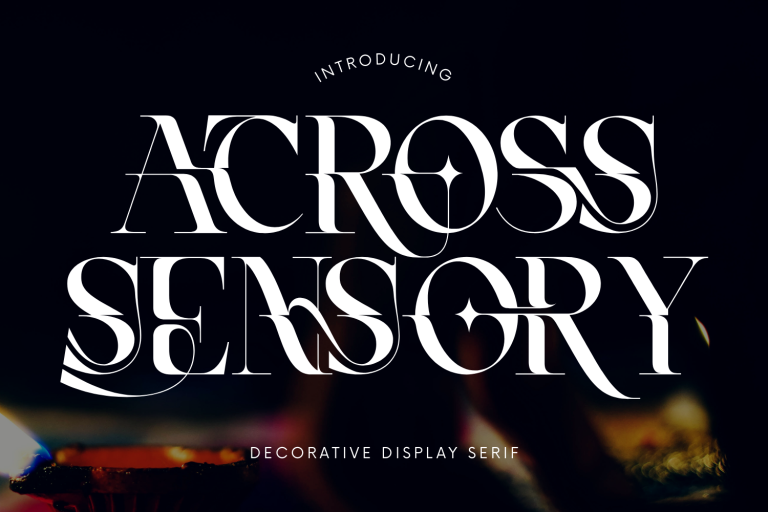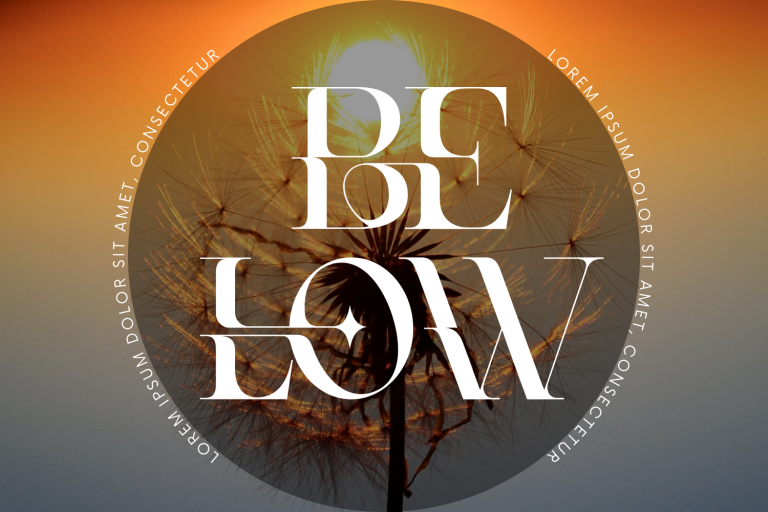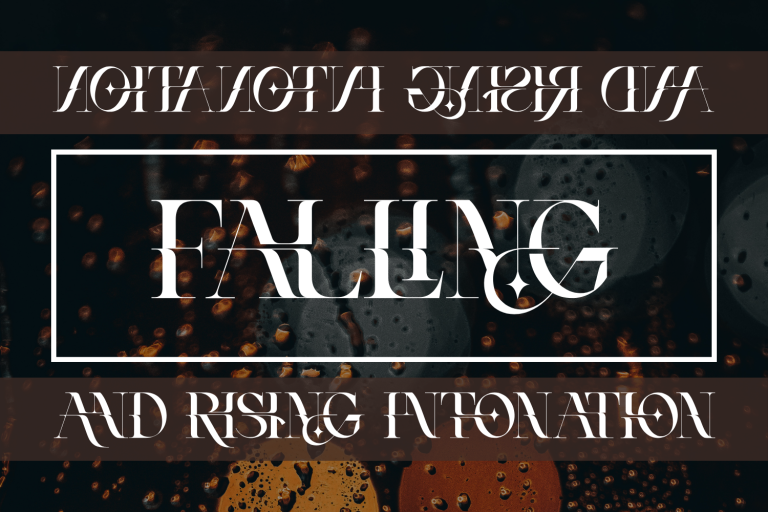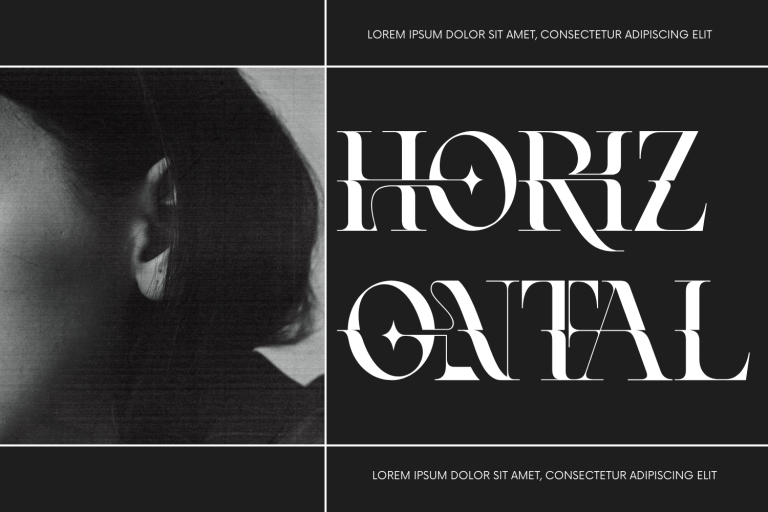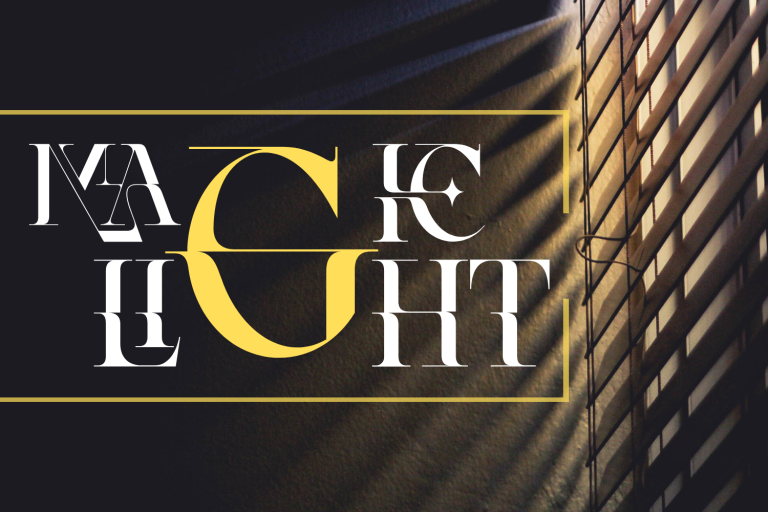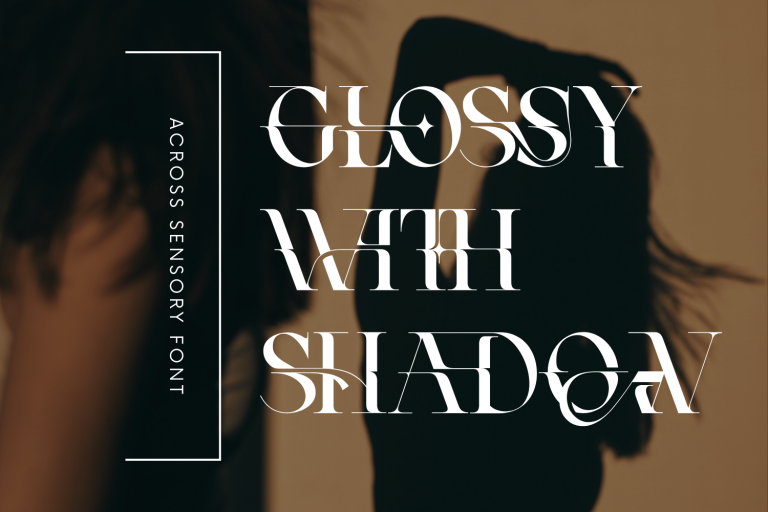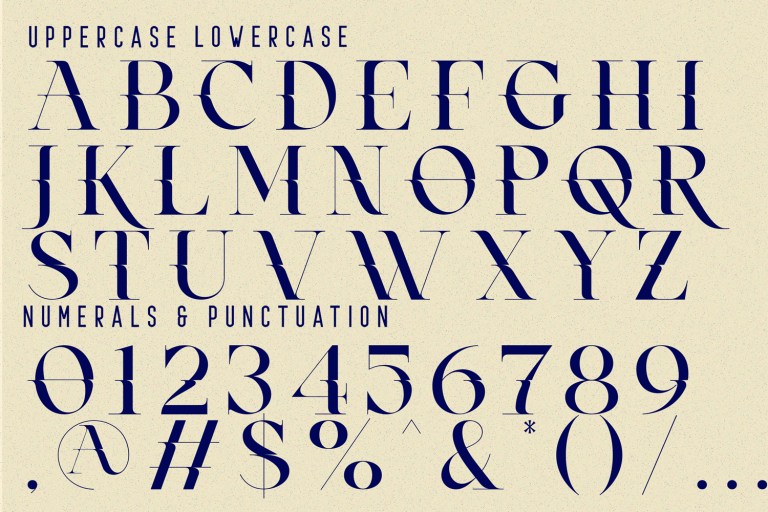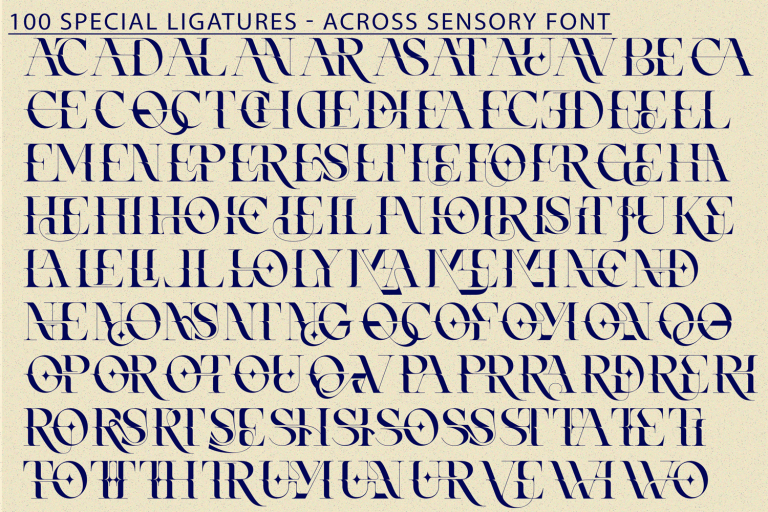
Across Sensory Modern Serif Font – is a sophisticated modern serif typeface that blends high fashion elegance with artistic flair. Its high-contrast strokes, refined serifs, and sweeping swashes create a sense of movement and luxury, while unique star-shaped details inside letterforms add a distinctive, celestial charm. This font is designed for those who want their typography to shine—perfect for branding, editorial titles, luxury packaging, wedding invitations, and creative display designs. With over 100 custom ligatures, Across Sensory allows for seamless and artistic letter connections, making your text look handcrafted and uniquely yours.
🔤 Font Features:
• Uppercase Letters
• 100+ Special Ligatures for Elegant Letter Combinations
• Multilingual Support with Accented Characters
• High-Contrast Strokes & Sharp Serifs
• Artistic Swashes & Decorative Star Elements
🔤 About 100 ligatures combined with Stylistic Alternates Font:
AC AD AL AN AR AS AT AU AV BE CA CE CH CO CT DE DI EA EC ED EE EL EM EN EP ER ES ET FE FO FR GE HA HE HI HO IE IC IL IN IO IR IS IT JU KE LA LE LI LL LO LY MA ME MI NC ND NE NG NO NT NS OC OF OM ON OO OP OR OT OU OW PA PR RA RD RE RI RO RS RT SE SH SI SO SS ST TA TE TH TI TO TR TT UM UN UR VE WI WO
Across Sensory Modern Serif Font